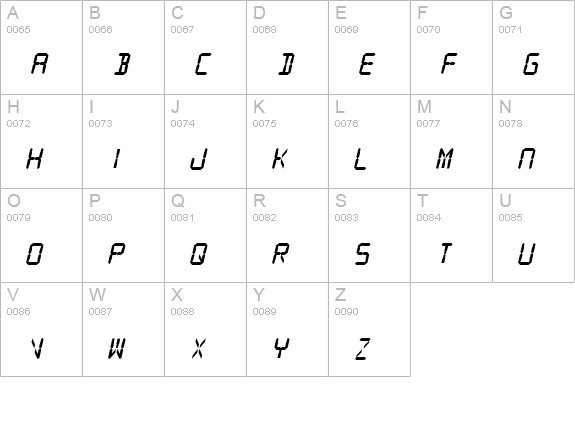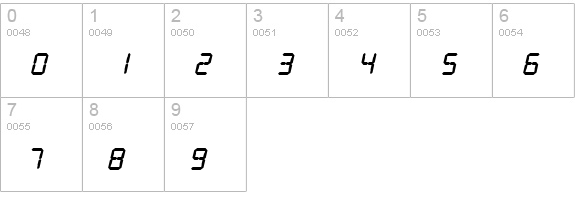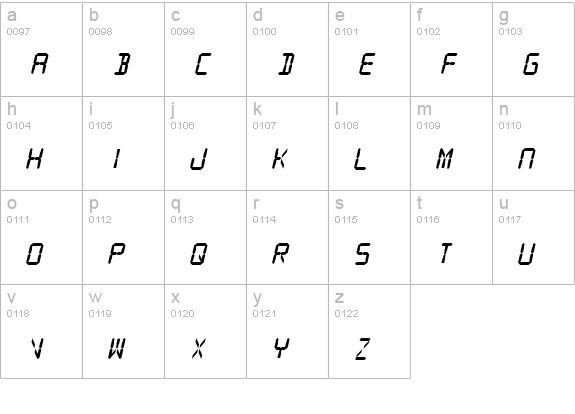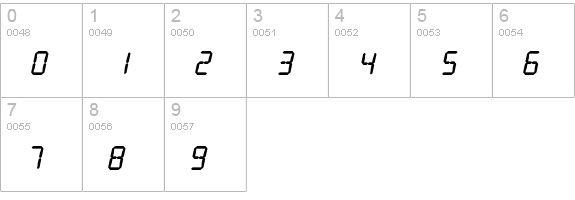
SF Digital Readout Heavy Oblique Font Details
SF Digital Readout Heavy Oblique is a heavy, high-impact, italic variant in the SF typeface family \xE2\x80\x94 well suited to high-impact headlines, posters, and display advertising.
SF Digital Readout Heavy Oblique font is a stunning display font that exudes a futuristic and technological aesthetic. This font is perfect for projects that require a bold and eye-catching display, such as digital displays, gaming graphics, or sci-fi themed designs. With its sleek and edgy design, SF Digital Readout Heavy Oblique font captures attention and adds a touch of modernity to any project. The heavy oblique style gives the font a dynamic and three-dimensional appearance, making it stand out from the crowd. What makes SF Digital Readout Heavy Oblique font even more appealing is that it is available for free! You can easily download this font at FontsMarket.com, a trusted source for high-quality fonts. Whether you are a designer looking to enhance your creative projects or an individual seeking a unique font for personal use, SF Digital Readout Heavy Oblique font is the perfect choice. This font is designed to be versatile and legible, ensuring that your message is delivered clearly and effectively. Its clean lines and sharp edges make it easy to read, even at small sizes or on high-resolution screens. So why wait? Download SF Digital Readout Heavy Oblique font today and embark on a journey of creativity and innovation. With its futuristic appeal and its availability for free at FontsMarket.com, this font is a must-have for any design enthusiast or tech aficionado. Get ready to impress your audience and make a bold statement with SF Digital Readout Heavy Oblique font.